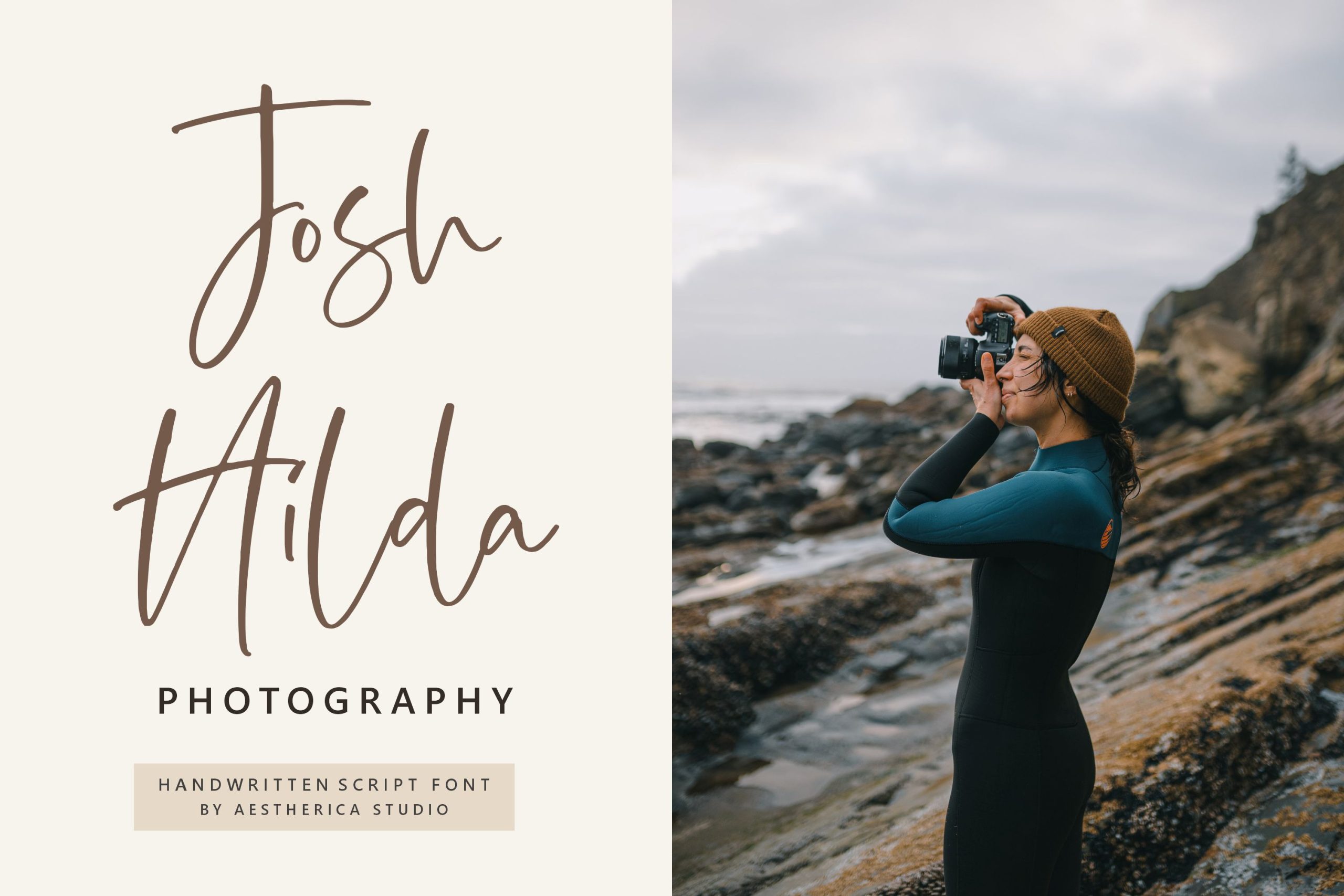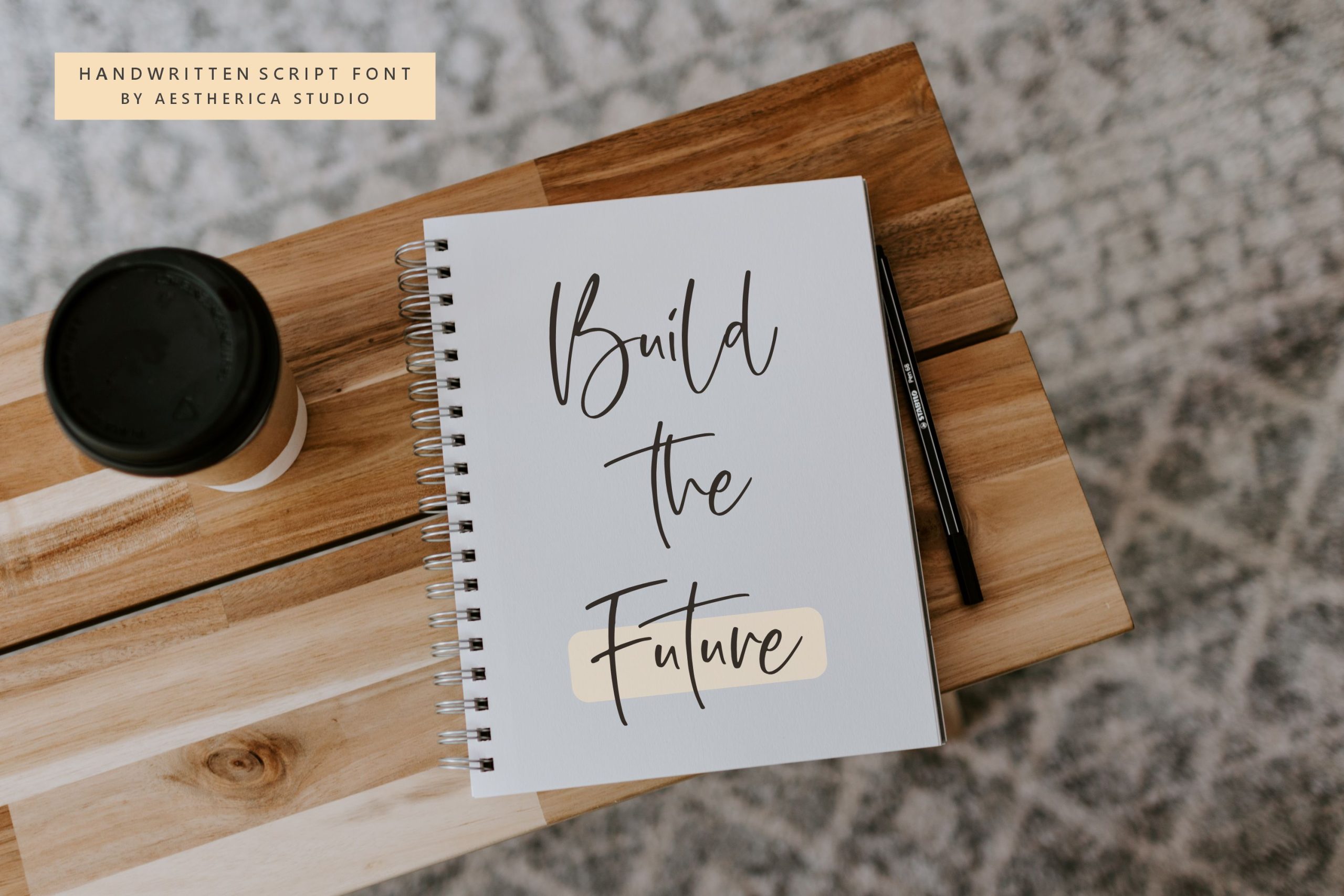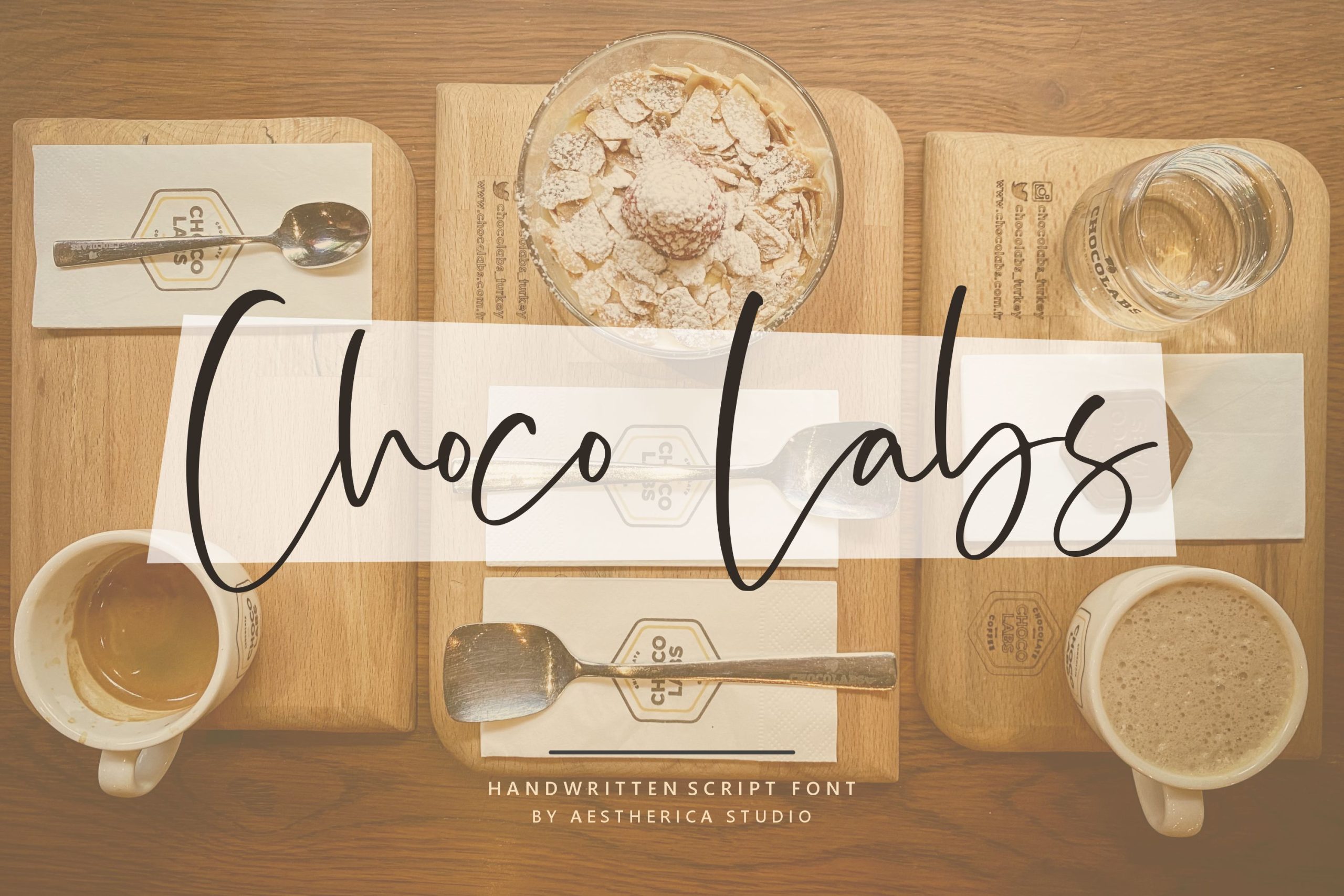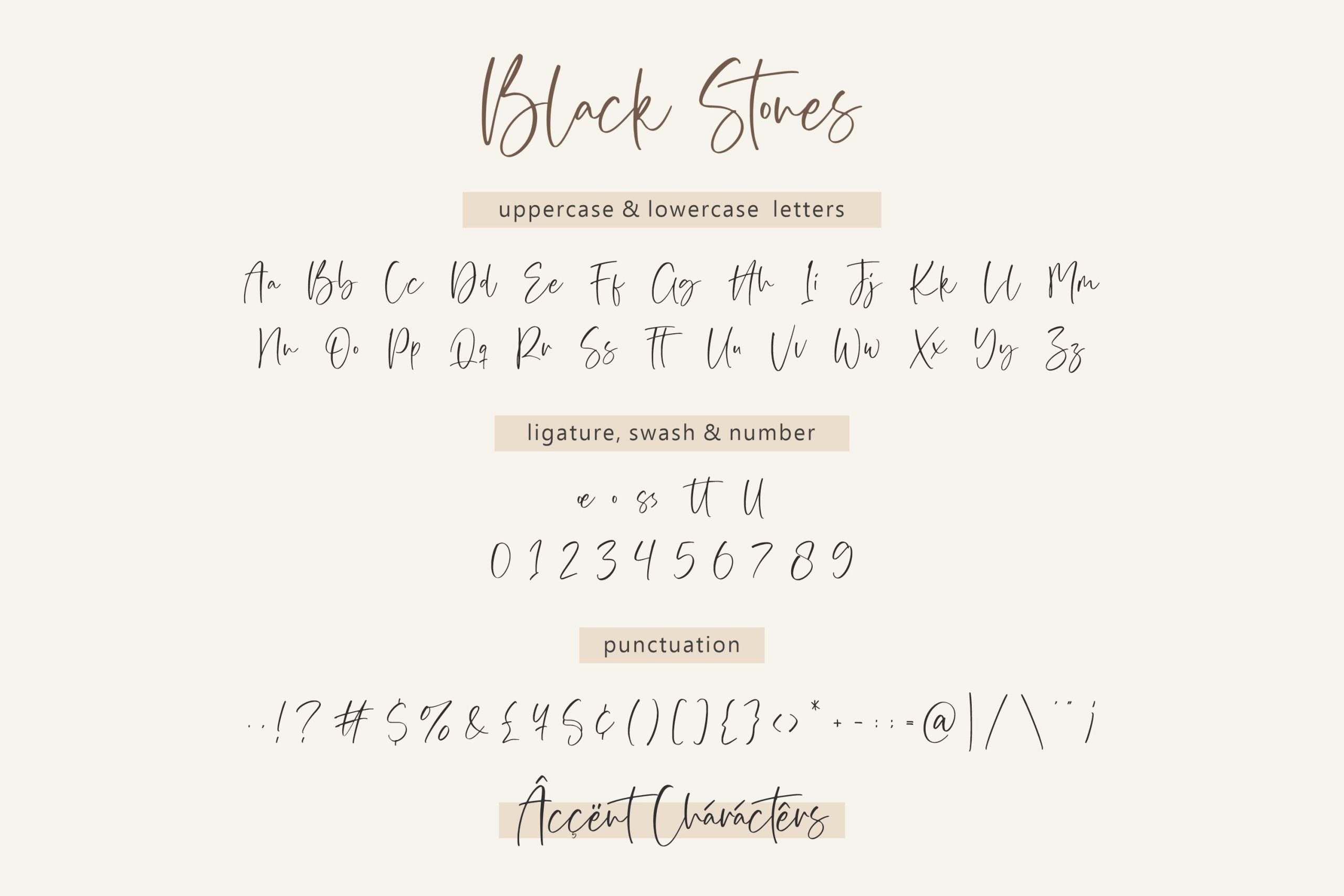
Black Stones Font
Black Stones Script Font
This is a fashionable and cool handwritten font. Fall in love with its incredibly distinct and timeless style and use it to create spectacular designs!